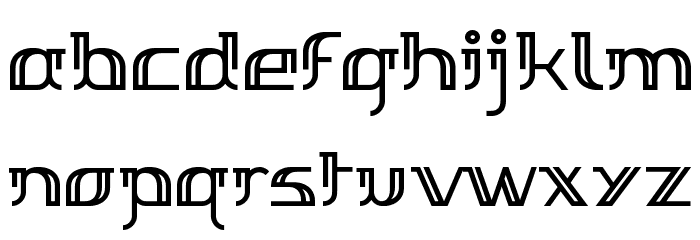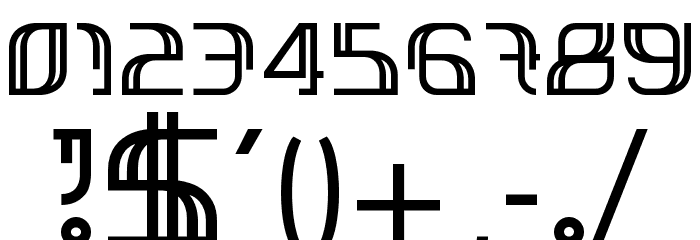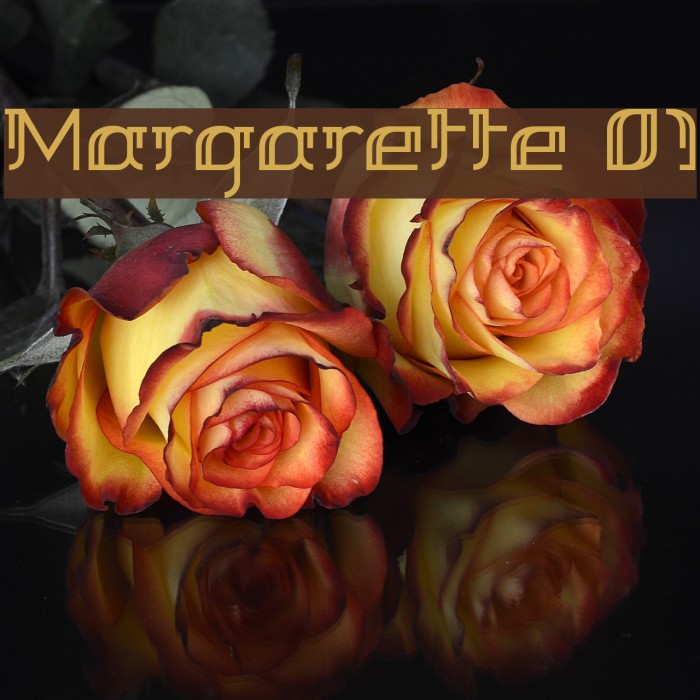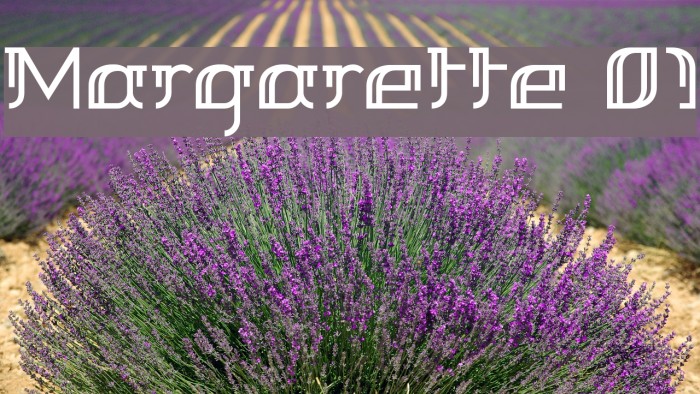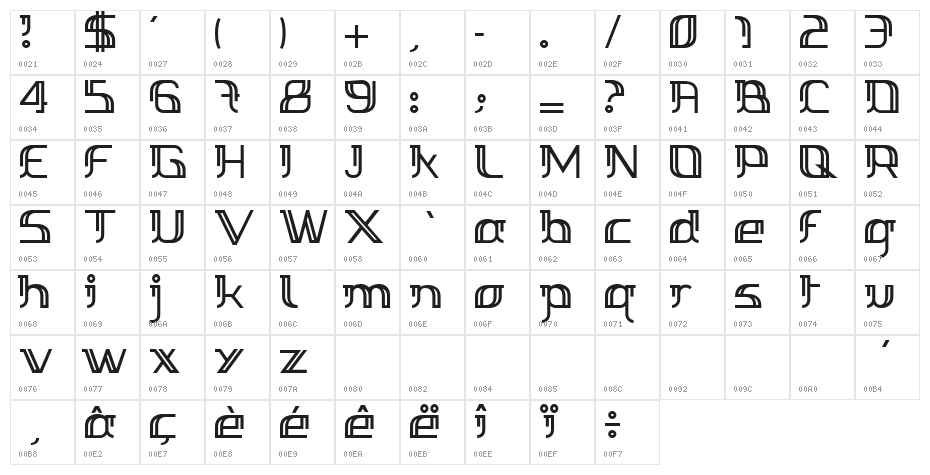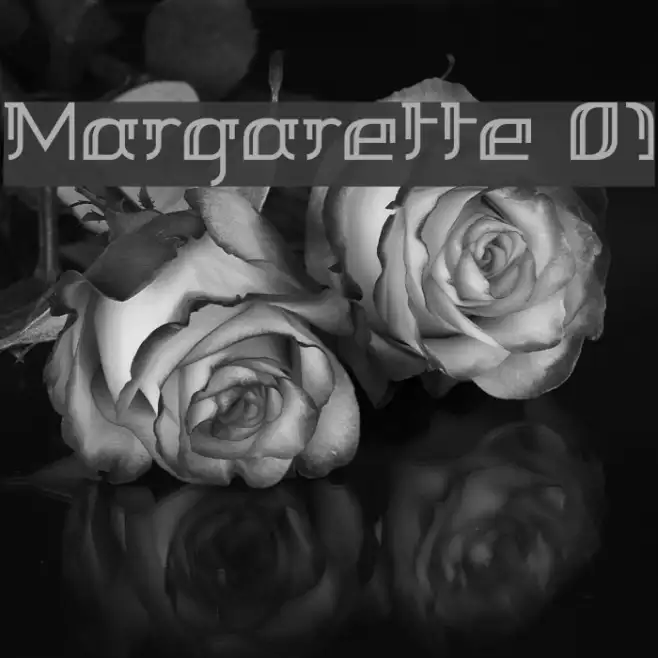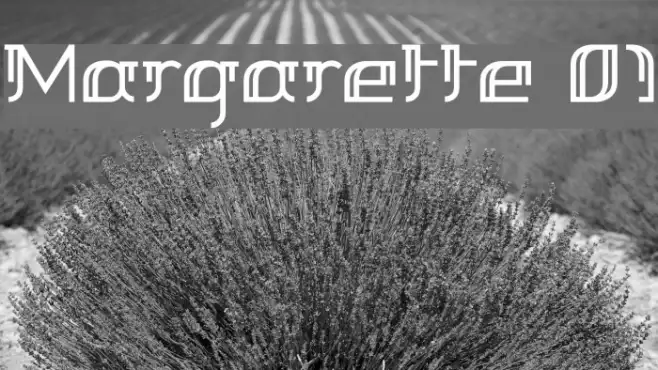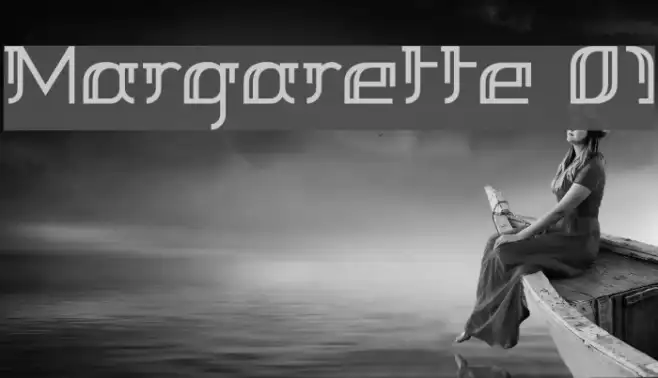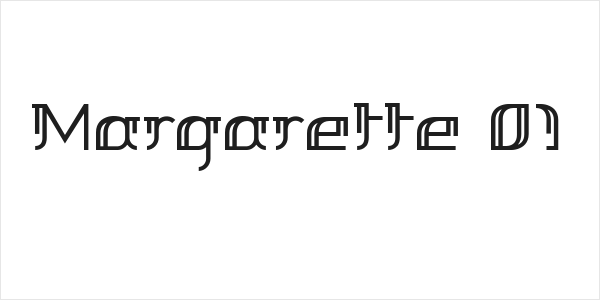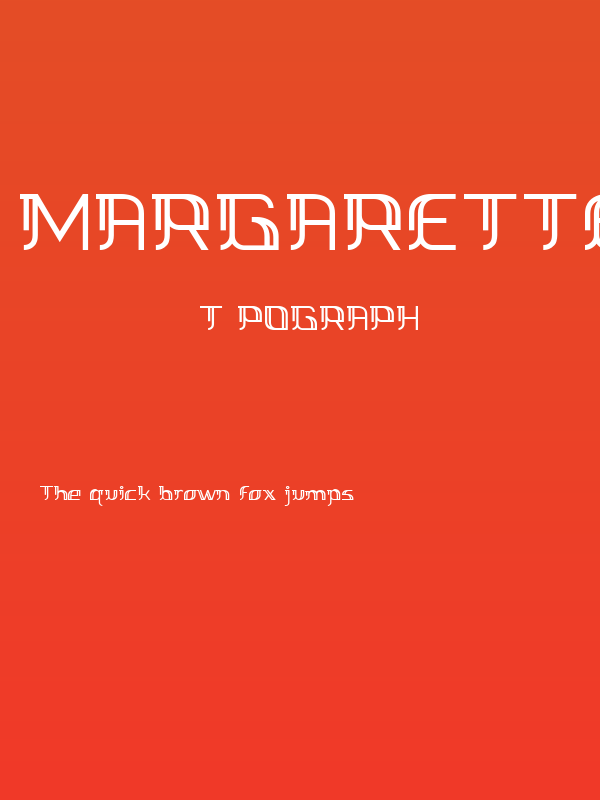
Margarette 01 Font
This font exhibits a unique and modern design with a geometric and angular style. The uppercase letters are bold and structured, featuring sharp edges and distinct lines that create a futuristic appearance. The lowercase letters maintain a similar geometric style, offering a cohesive look across the alphabet. Numbers are consistent with the overall design, providing a clear and legible appearance. Special characters are creatively integrated, maintaining the font's distinctive style. The overall impression is one of innovation and modernity, making it suitable for projects that require a contemporary and edgy aesthetic.
A modern, geometric font with sharp edges and a futuristic style.
- Proposed Projects: Ideal for technology branding, modern advertising, futuristic posters, and digital interfaces.
- Use Case: Headlines, Logos, Digital Interfaces